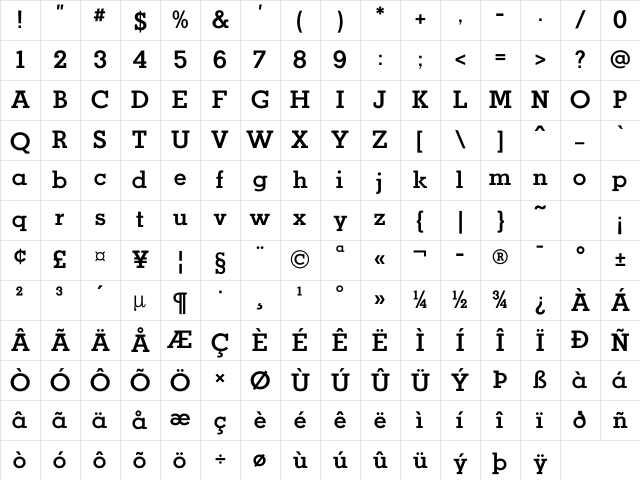
Foundry: International TypeFounders, Inc
Designer: Steve Jackaman + Ashley Muir
Design Context for KarnakPro-Medium
KarnakPro-Medium is a composed and adaptable typeface that performs quietly and consistently across a wide range of design contexts.
Pro Tip: Use KarnakPro-Medium in both headline and body roles to test its range before committing to a single application.